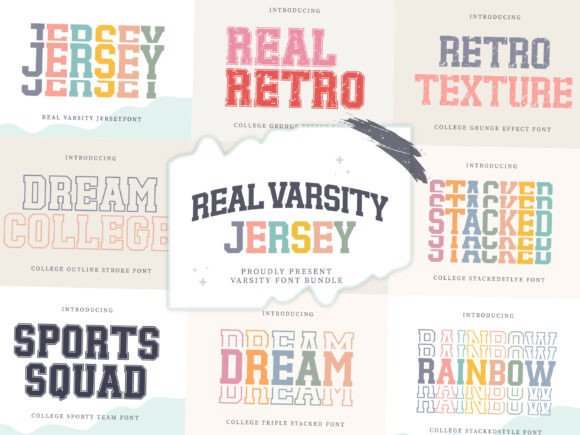
Why the Real Varsity Jersey Font Works on a Live Website
I was mid-build on a boutique fitness coaching website when I hit the kind of design wall you can’t just inspect-element your way out of. The hero section had a strong photograph of an athlete mid-drill, the color palette felt energetic, but the headline sat there like placeholder text that forgot to try. The client wanted bold, athletic, collegiate energy without the visual noise of a sports broadcast ticker. I pulled up a preview of the Real Varsity Jersey Bundle and dropped a rough headline into the mockup. The shift was immediate—the type finally held its own against the imagery.
This isn’t about finding just another display font. It’s about matching a specific personality to a live digital surface, and the Real Varsity Jersey Bundle carried a built-in sense of legacy, motion, and confidence that our layout had been missing.
A Typographic Personality Built for Digital Heroes
What defines the visual character of this bundle is its commitment to varsity lettering tropes without devolving into cliché. You get the thick block construction, the tight internal tension, and the subtle serif nods that recall letterman jackets and stadium signage, yet each style feels clean enough for modern web design. The typefaces avoid overly distressed textures, which means they render crisply on retina screens and don’t break down at smaller sizes on mobile devices.
When I examined the glyph set, I noticed the numbers had that same athletic weight—perfect for jersey numbers, countdown timers on a course sales page, or stat-heavy sections in a portfolio homepage. The uppercase set drives the energy, while lowercase variations soften the tone just enough for a subhead or a secondary call-to-action. This range of expression inside one display font family gives a digital product creator room to move without constantly hunting for complementary type.
Placing the Font Inside a Real Layout
On the coaching site, I used the boldest weight for the primary hero headline: “Train Like You Mean It.” The phrase spanned three words, so it didn’t become visually exhausting. Over a dark image overlay with a slightly reduced opacity, the letterforms held their ground without requiring a heavy drop shadow or outline stroke. I tested it on a mid-range Android device and an iPhone 13 Mini to check how the blocky structure survived smaller viewports. The counters stayed open, and the spacing didn’t collapse into itself—a frequent problem with compressed creative font choices.
For sticky navigation, I didn’t use the bundle. That would have been a readability mistake. Instead, I paired the varsity type with a neutral sans serif font for menu labels, body copy, and button microcopy. The contrast created a clear visual hierarchy: the display font shouted only where shouting made sense. This is the primary usability principle for any premium font with a strong personality—it works best as a spice, not the entire meal.
Where the Real Varsity Jersey Bundle Belongs On-Screen
Through several iterations, I found this collection served specific digital roles more effectively than I initially expected. It wasn’t just a hero headline solution. Here’s where it consistently improved the brand experience:
I also tested a lighter weight from the bundle on a blog redesign for a sports nutrition brand, using it for pull quotes and stat highlights inside long-form articles. It broke up dense paragraphs nicely without feeling disconnected from the overall editorial design approach.
Readability Reality Check Across Devices
No display typeface survives the mobile-first gauntlet without some compromises. The Real Varsity Jersey Bundle is not a body copy workhorse, and treating it as one erodes user engagement quickly. I limited its use to phrases under ten words in any viewport. On screens narrower than 375 pixels, I increased the letter-spacing slightly and bumped the font size up a few pixels relative to the design comp to maintain shape clarity.
On dark backgrounds, especially near-black or deep navy, the thick strokes absorbed enough contrast to stay legible without turning muddy. On light backgrounds, a slight adjustment to the anti-aliasing settings in CSS cleaned up any edge fuzziness. For buttons, I avoided using these letterforms—the block construction felt too dense inside a small rounded container, which hurt scanning behavior. I reserved them for button labels only when the button itself was oversized on desktop, like a hero CTA with generous padding.
If you’re placing text over images, look for photograph areas with relatively low detail behind the headline. Busy backgrounds, especially grass fields or crowd shots, created visual interference that made the thicker letterforms harder to read instantly. A subtle scrim overlay solved that in every case I tested.
Building Trust Through Typographic Consistency
A frequent trap with specialty fonts is using them inconsistently, which chips away at brand trust. On the coaching site, I defined three fixed use cases for the Real Varsity Jersey Bundle and never deviated. The homepage hero, the testimonial section header, and the pricing table headline each carried the athletic type. Everywhere else, the neutral sans serif took over. Visitors didn’t consciously register this pattern, but the site felt more deliberate and professional.